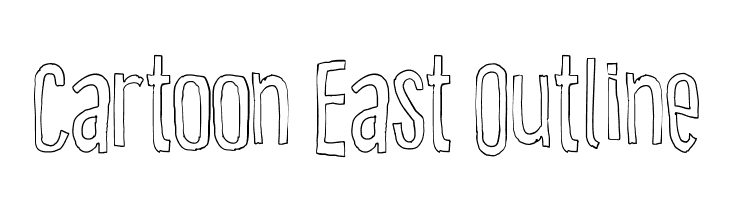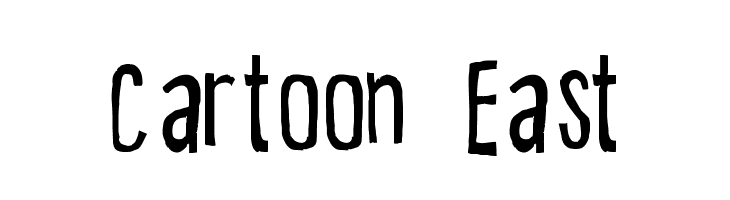
( Fonts by Kong Font )
A bold, cartoonish font with rounded, tilted characters for a playful look.
( Fonts by Galdino Otten - galdinootten.com )
A playful, hand-drawn font with irregular, whimsical characters.
A playful, hand-drawn style font with irregular, dynamic characters.
( Fonts by Galdino Otten - galdinootten.com )
A playful, hand-drawn outline font with a cartoonish style.
A playful, hand-drawn outline font with a whimsical and cartoonish style.
A bold, playful font with a cartoonish style and rounded, exaggerated serifs.
( Fonts by Jonathan S. Harris )
A playful, cartoonish font with unique, textured characters.
( Fonts by InspiraType )
A playful, bold, hand-drawn font with a cartoonish, energetic style.
A bold, playful font with cartoonish, uneven strokes and exaggerated curves.
( Fonts by Darrell Flood )
A bold, playful italic font with exaggerated, rounded characters.